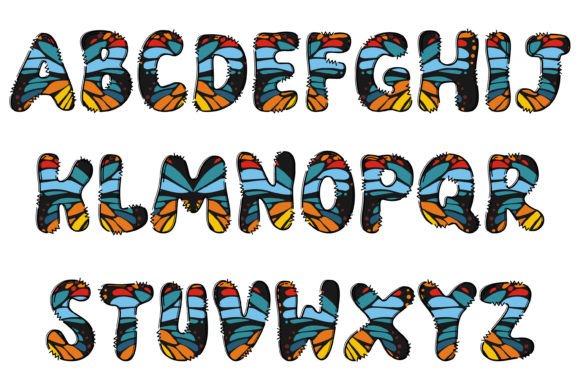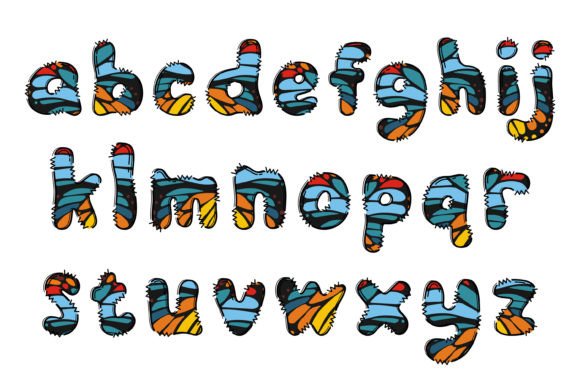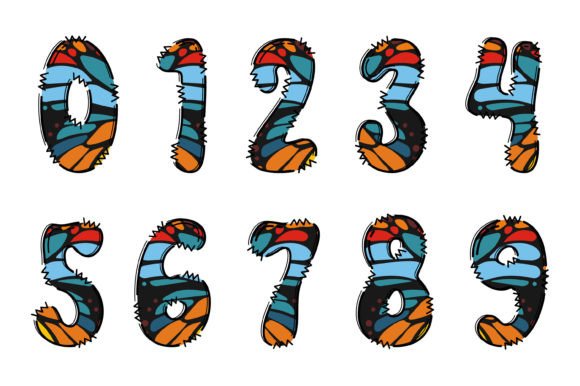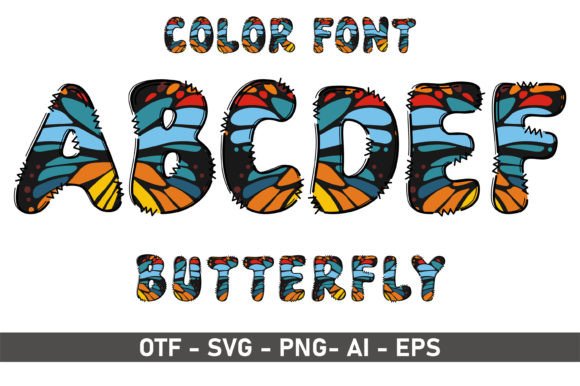
The Whimsical World of Butterfly Fonts: Adding Playfulness to Your Designs
Butterfly fonts have become a popular choice among designers and crafters looking to add a touch of playfulness and artistic flair to their projects. These fonts are often used in designs that aim to convey a sense of fun, creativity, and imagination, making them perfect for children’s books, posters, invitations, greeting cards, and more.
The Characteristics of Butterfly Fonts
Butterfly fonts are known for their whimsical and artistic feel, often featuring curly, swirly, and irregular shapes that evoke a sense of movement and playfulness. These fonts can range from simple, hand-drawn designs to more complex, digitally created fonts with intricate details. Some common characteristics of butterfly fonts include:
- Curved and swirly lines
- Irregular shapes and sizes
- Playful and whimsical feel
- Often features floral or nature-inspired elements
Uses of Butterfly Fonts
Butterfly fonts are versatile and can be used in a variety of design projects, including:
- Children’s books: Butterfly fonts are perfect for kids’ books, as they create a fun and engaging reading experience. Whimsical fonts can help bring stories to life and capture young readers’ attention.
- Posters and flyers: Add a playful touch to your posters and flyers with butterfly fonts, making them stand out and grab attention.
- Invitations and greeting cards: Use butterfly fonts to create unique and personalized invitations and greeting cards for special occasions.
- Crafting and DIY projects: Butterfly fonts can add a creative touch to your crafting and DIY projects, such as scrapbooking, journaling, and paper crafting.
Tips for Using Butterfly Fonts Effectively
To get the most out of butterfly fonts, follow these tips:
- Keep it simple: Balance your design with simple and clean elements to avoid overwhelming the reader.
- Choose the right color scheme: Select colors that complement the playful and artistic feel of the font.
- Experiment with font sizes: Play with different font sizes to create visual interest and hierarchy in your design.
- Pair with complementary fonts: Combine butterfly fonts with simpler fonts to create contrast and add depth to your design.
Butterfly fonts offer a world of creative possibilities for designers and crafters looking to add a touch of playfulness and artistic flair to their projects. With their whimsical and artistic feel, these fonts are perfect for children’s books, posters, invitations, greeting cards, and more. By understanding the characteristics, uses, and tips for using butterfly fonts effectively, you can take your designs to the next level and create engaging, imaginative, and visually stunning projects.